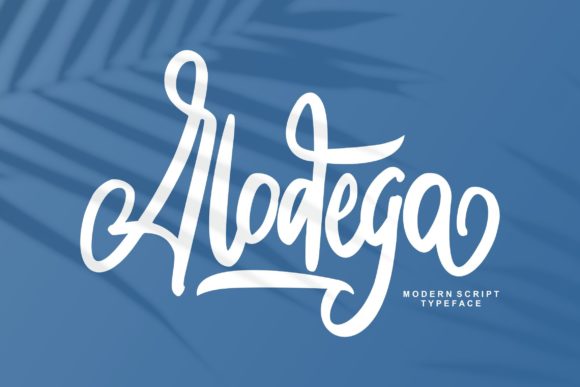
The Alodega Font: A Timeless Handwritten Treasure for Designers
Have you ever been in the middle of a design project, and suddenly, you’re stuck on finding the perfect font? I recall a particularly frustrating experience while working on a branding project for a boutique client. The brief required a font that was both elegant and playful, but I just couldn’t seem to find the right fit. That’s when I stumbled upon the Alodega font, and it completely transformed my design. In this article, we’ll dive into the world of Alodega, exploring its unique features, and how to make the most of this beautiful handwritten font.
A Personal Review of Alodega Font
What I Love About Alodega ✨
- 💫 Unique and beautiful touch: Every letter in Alodega has a distinct character, making it perfect for creating eye-catching logos, branding, and quotes.
- ✅ Timeless design: Alodega’s classic handwritten style ensures that your designs will remain stylish for years to come.
- 🎨 Versatility: This font is suitable for a wide range of design projects, from elegant branding to playful crafts.
While Alodega is an exceptional font, there are a few minor considerations to keep in mind:
- 🤔 Limited availability of stylistic alternates: Although Alodega offers some OpenType features, it may not have as many alternates as some other fonts.
- ⚠️ Potential for letter spacing issues: As with any handwritten font, you may need to adjust letter spacing to achieve optimal results.
The Story Behind Alodega Font
While the true story behind Alodega’s creation remains a mystery, it’s easy to imagine that this font was born from a passion for beautiful handwriting. Perhaps the designer, inspired by traditional calligraphy, sought to create a font that would bring a touch of elegance and whimsy to the digital world. Whatever the inspiration, Alodega has undoubtedly become a treasured find for designers and crafters alike.
Q: What makes Alodega font unique?
A: Alodega’s unique touch lies in its beautiful, handwritten style, with every letter boasting a distinct character.
Q: Does Alodega support OpenType features?
A: Yes, Alodega offers some OpenType features, including ligatures and stylistic alternates, allowing for added customization.
Q: Can I use Alodega in both print and digital designs?
A: Absolutely! Alodega’s versatility makes it perfect for a wide range of design applications, from print materials to digital projects.